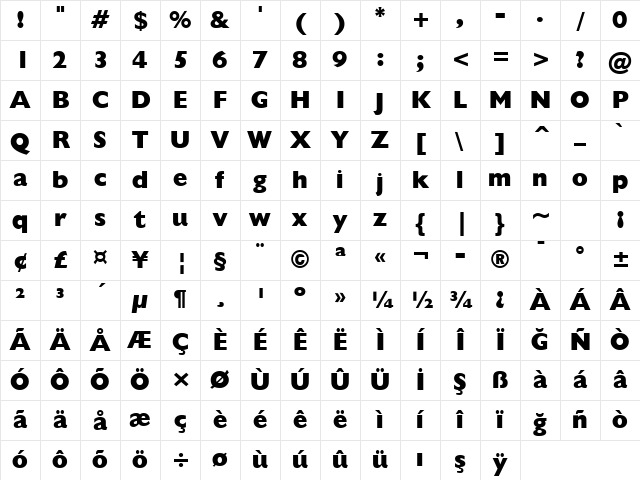
101! CandleZ Regular Free Font
101! CandleZ Regular
Design Context for 101! CandleZ
101! CandleZ is a composed and adaptable typeface that performs quietly and consistently across a wide range of design contexts.
Pro Tip: Use 101! CandleZ in both headline and body roles to test its range before committing to a single application.